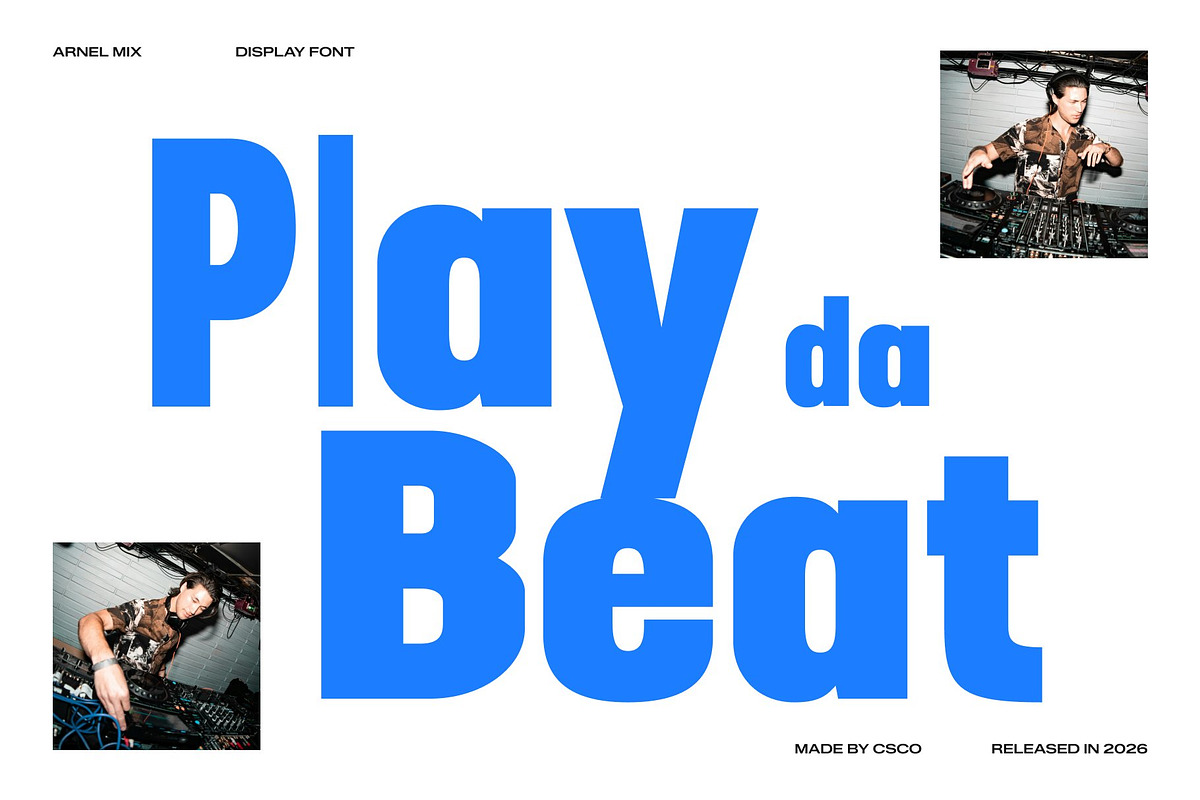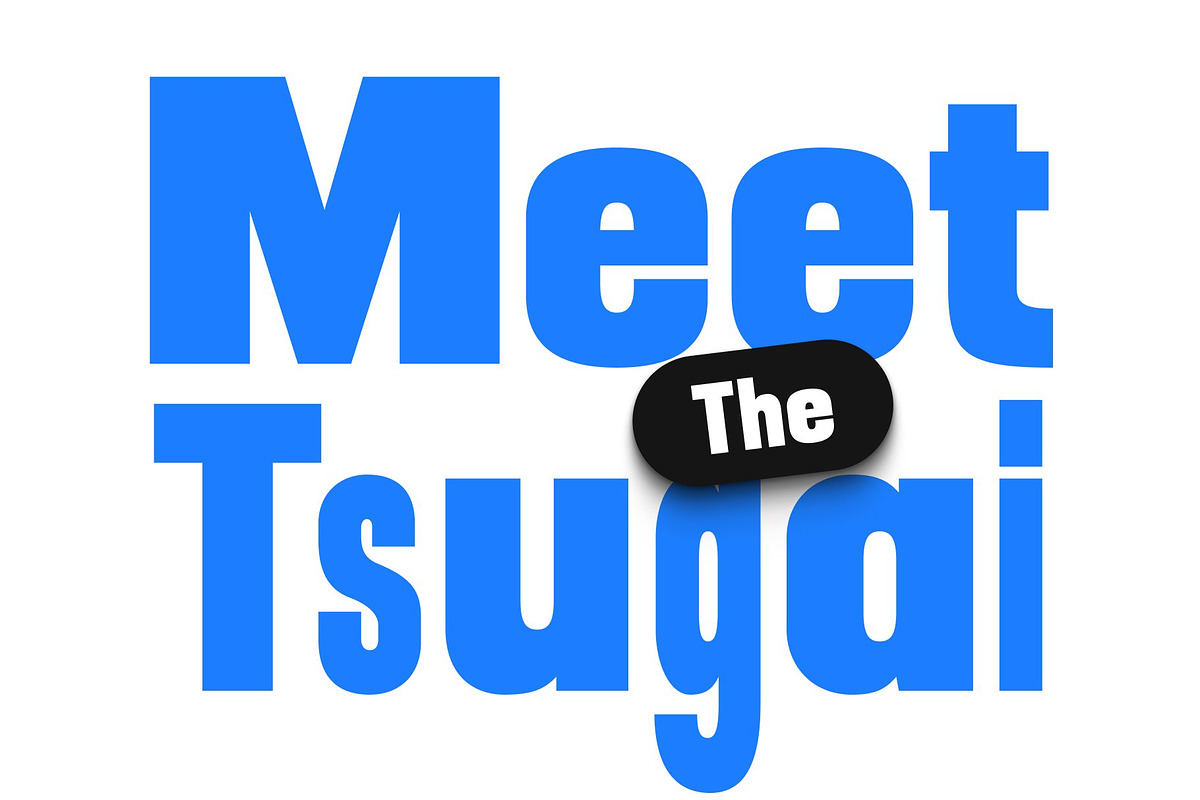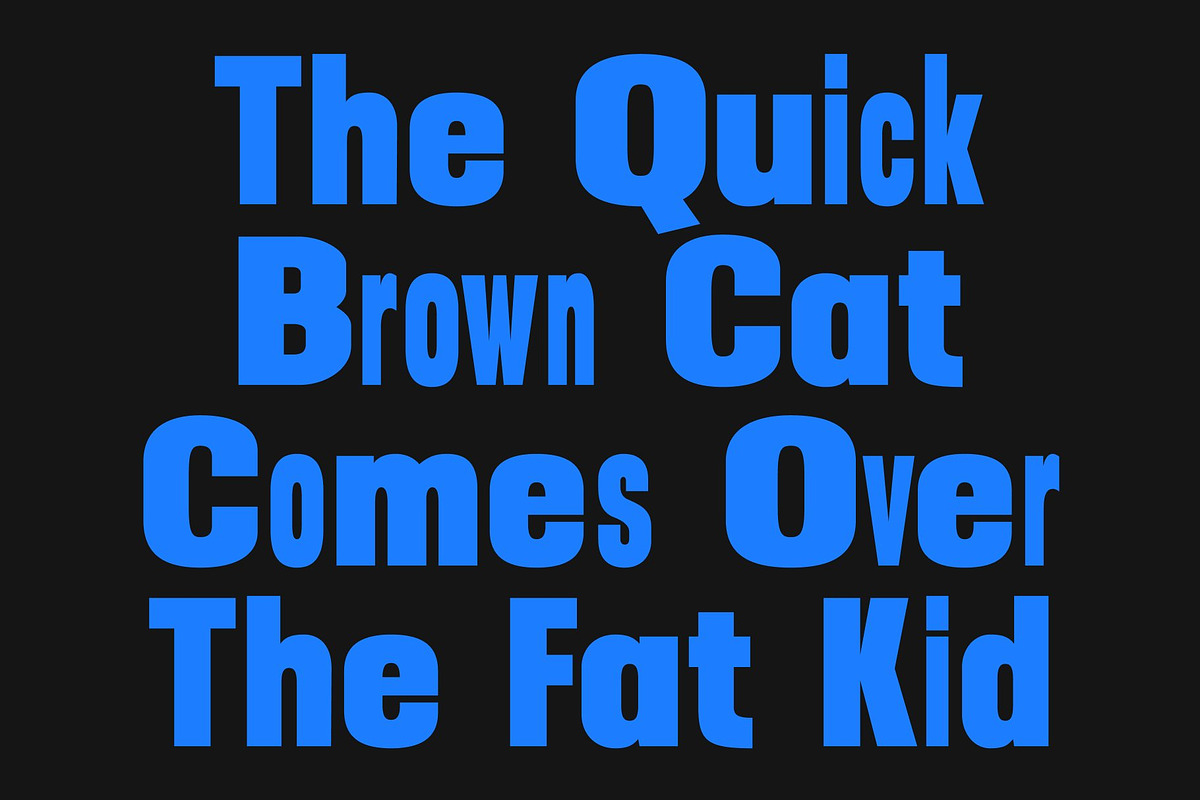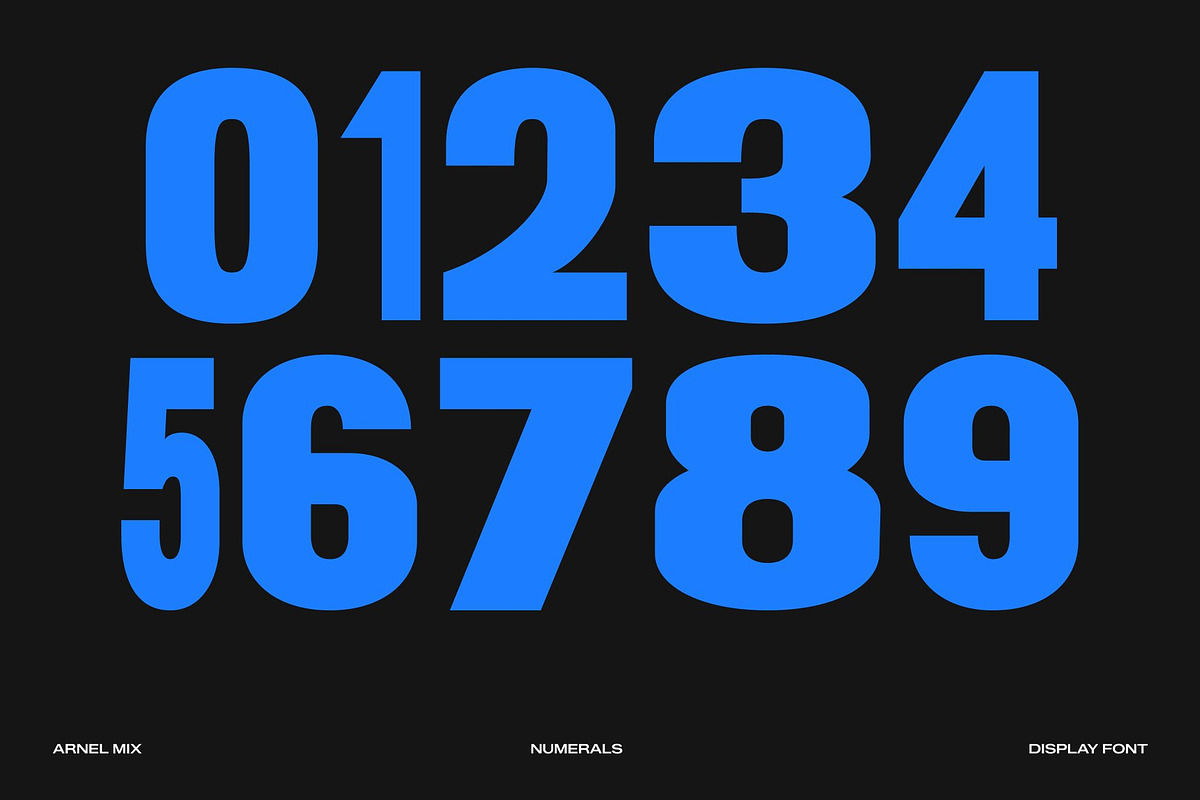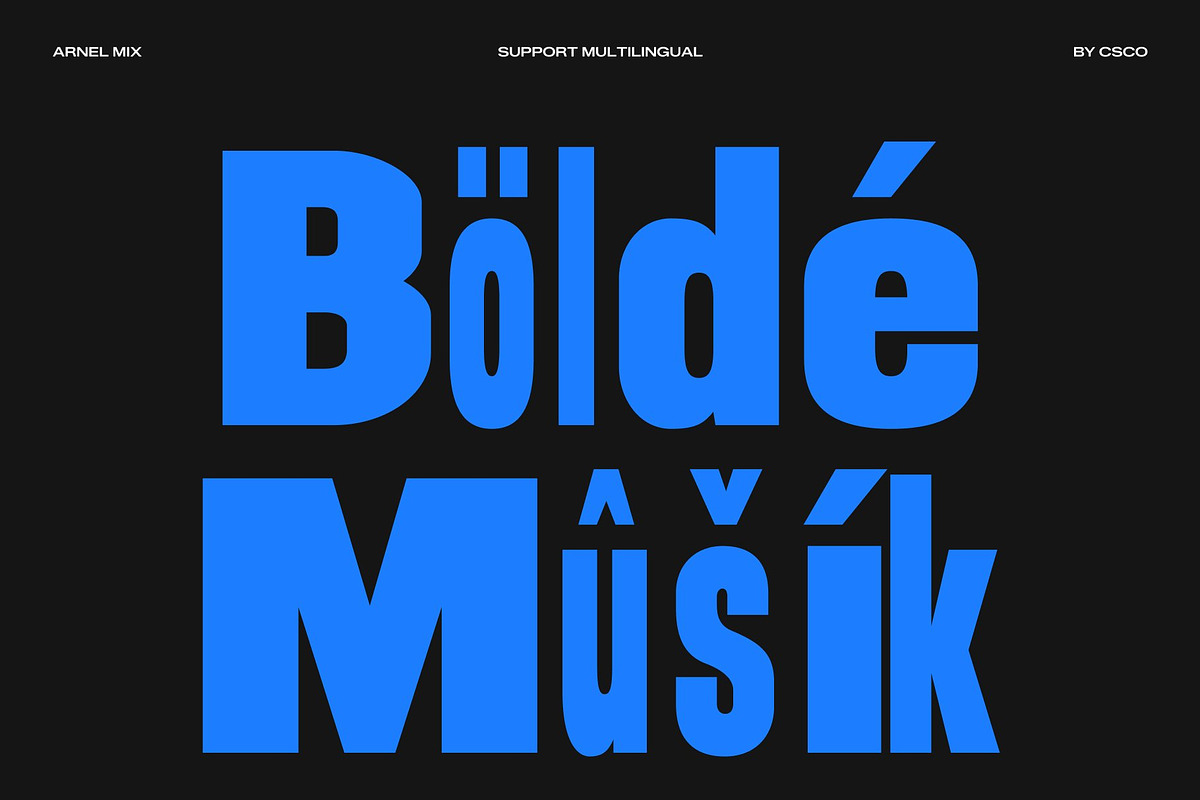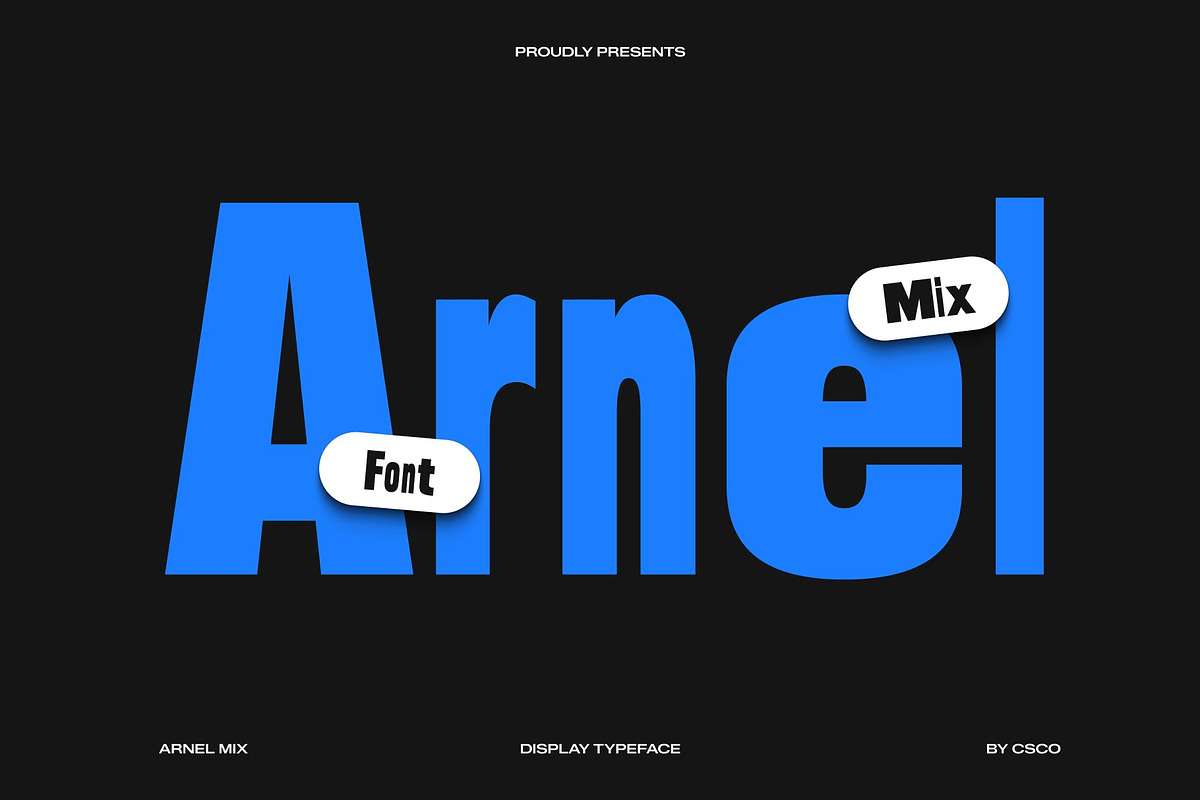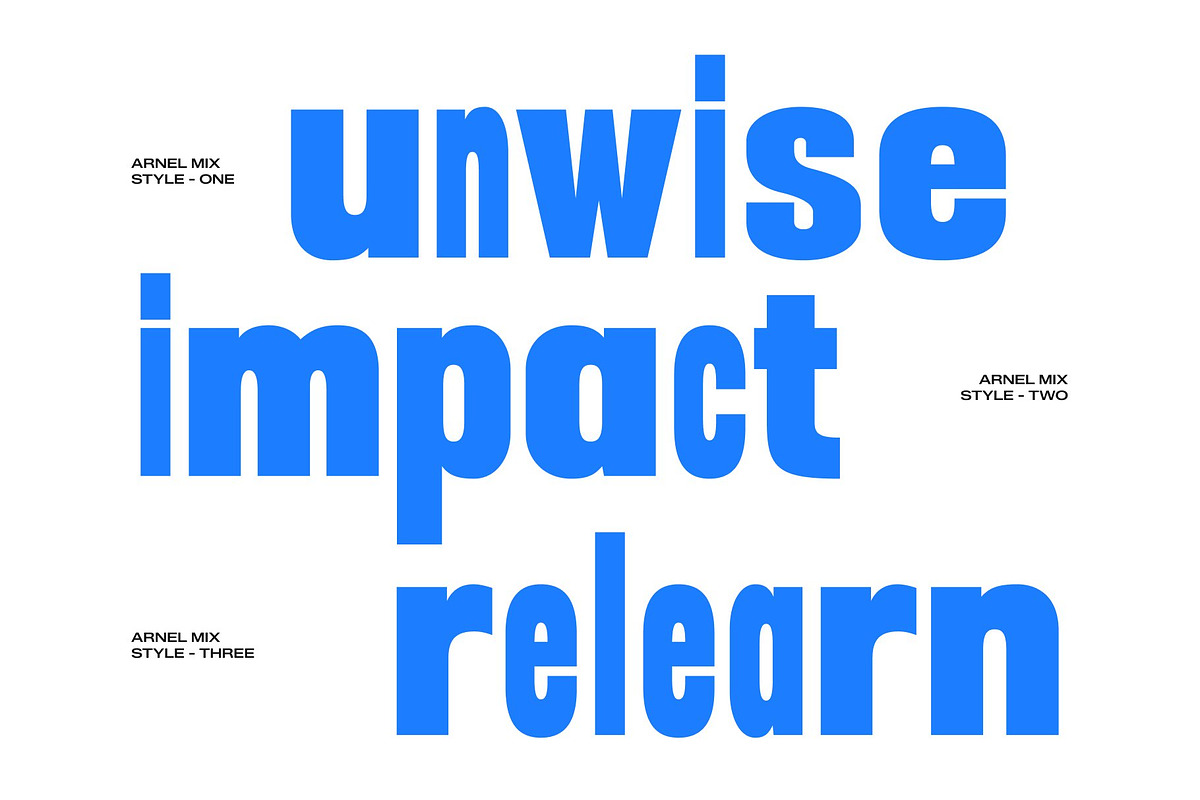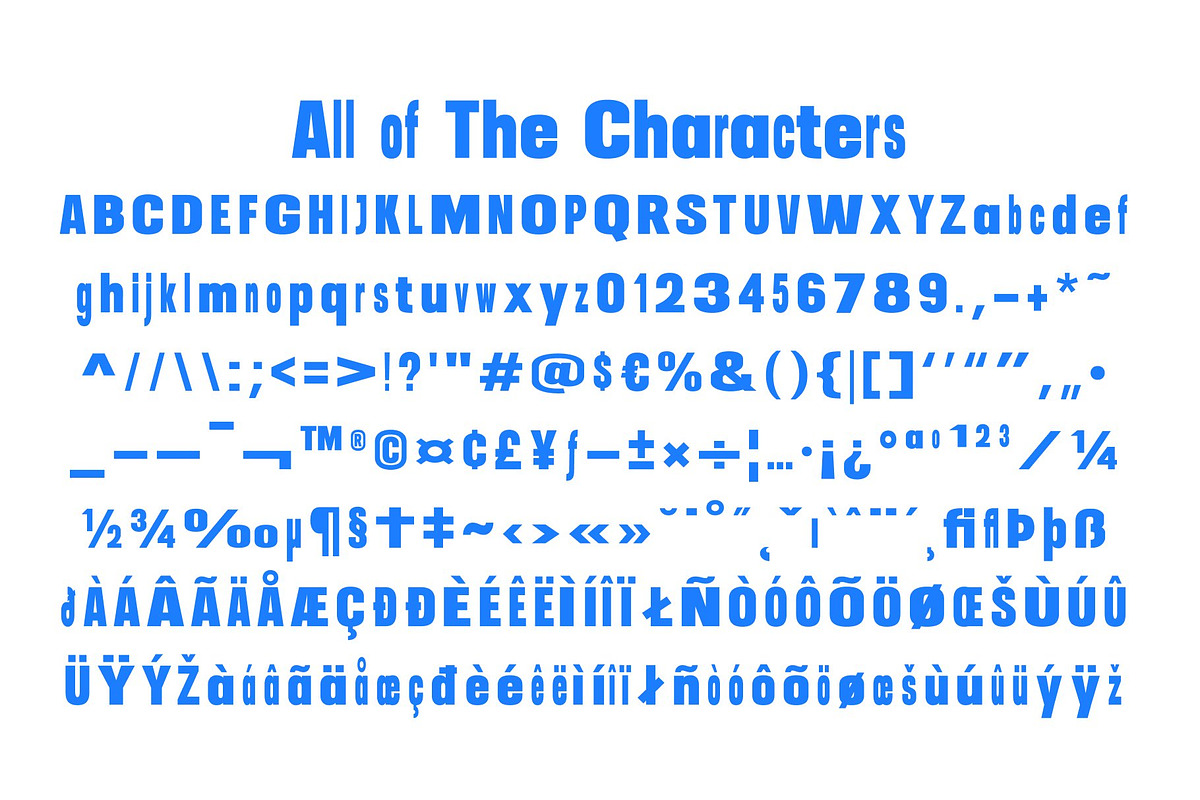
Arnel Mix
Arnel Mix – Bold Sans Serif: Powerful Presence with Modern Mixed Character
Bold Display Sans with Mixed Style Personality This is a bold sans serif font designed to radiate strength, confidence, and commanding visual impact. Crafted as a powerful display typeface, it introduces a distinctive mixed-style concept that adds rhythm and contrast to its robust structure. This fusion transforms strong typography into a dynamic design element that instantly captures attention.
A Strong Blend of Bold and Regular Letterforms The signature character of this font lies in its creative fusion of bold and regular styles. This mix creates striking contrast and visual movement, allowing text to feel energetic, expressive, and modern. The interplay between heavy strokes and balanced forms gives the font a confident personality while maintaining clarity and harmony in every composition.
Designed to Command Attention and Convey Confidence This font delivers a bold and assertive tone that makes headlines and branding feel powerful and memorable. Its thick strokes and solid construction communicate authority and strength, ensuring your message stands out in competitive visual environments.
Perfect for Headlines, Posters, and Impactful Branding From advertising campaigns and marketing visuals to posters and brand identities, this font excels in projects that demand strong visual presence. Its masculine and impactful style helps designs feel confident, modern, and unmistakably bold. Whether you aim to create eye-catching promotions or powerful brand statements.
Arnel Mix One
Arnel Mix Two
Arnel Mix Three